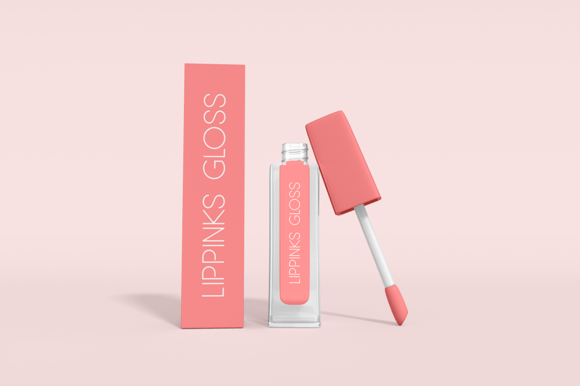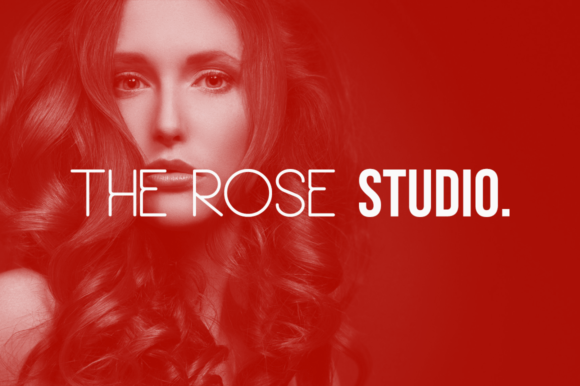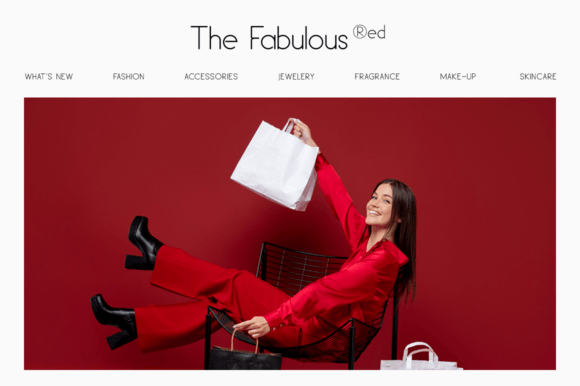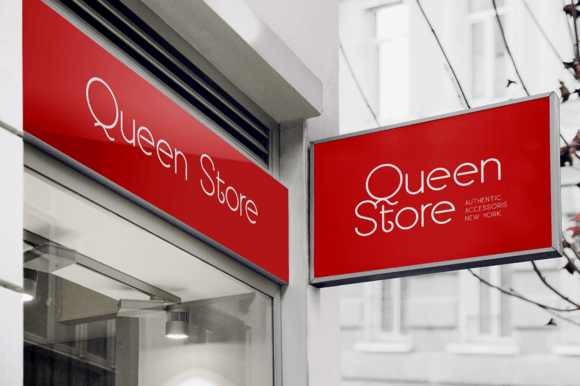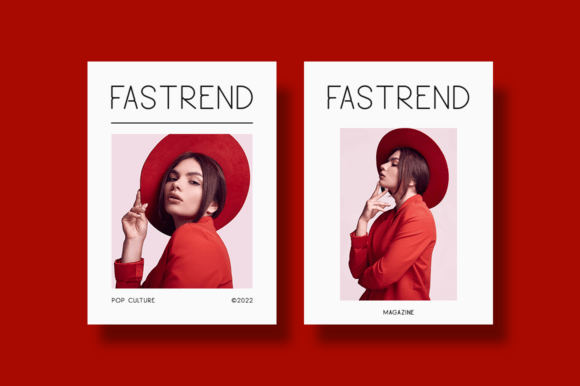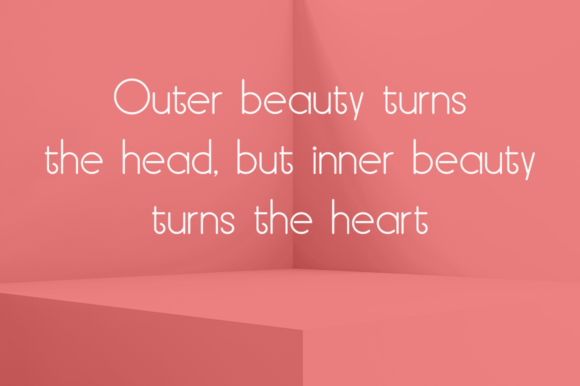
Fantasion Font: Elevate Your Crafting Ideas with Elegance
In the world of design and crafting, the right font can make all the difference. A well-chosen font can elevate your project, convey your message, and leave a lasting impression on your audience. If you’re looking for a font that exudes elegance and sophistication, look no further than Fantasion Font. In this article, we’ll explore the features and benefits of Fantasion, and how it can take your crafting ideas to the next level.
What is Fantasion Font?
Fantasion is an elegant sans serif font that is perfect for designers and crafters who want to add a touch of sophistication to their projects. Its clean and modern design makes it versatile and easy to use, while its PUA (Private Use Area) encoding ensures that you can access all of the glyphs and swashes with ease.
Key Features of Fantasion Font
- Elegant Sans Serif Design: Fantasion’s sleek and modern design makes it perfect for a wide range of projects, from cards and branding to labels and more.
- PUA Encoded: With PUA encoding, you can access all of the glyphs and swashes with ease, giving you maximum flexibility and creative control.
- Wide Range of Uses: Fantasion is perfect for a variety of crafting ideas, including cards, branding, labels, and more.
Benefits of Using Fantasion Font
So why choose Fantasion Font for your next project? Here are just a few benefits of using this elegant sans serif font:
- Elevate Your Designs: With Fantasion, you can add a touch of elegance and sophistication to your designs, taking them to the next level.
- Easy to Use: Fantasion’s PUA encoding makes it easy to access all of the glyphs and swashes, so you can focus on creating, not struggling with complicated font issues.
- Versatile: Fantasion is perfect for a wide range of projects, from cards and branding to labels and more, making it a great addition to any designer’s or crafter’s toolkit.
How to Use Fantasion Font in Your Projects
Using Fantasion Font in your projects is easy. Here are a few ideas to get you started:
- Cards: Add a touch of elegance to your greeting cards, invitations, and other paper crafts with Fantasion.
- Branding: Use Fantasion to create stunning brand identities, including logos, business cards, and letterheads.
- Labels: Add a professional touch to your labels and packaging with Fantasion’s clean and modern design.
Tips and Tricks for Getting the Most Out of Fantasion Font
Here are a few tips and tricks for getting the most out of Fantasion Font:
- Experiment with Different Sizes and Colors: Fantasion looks great in a variety of sizes and colors, so don’t be afraid to experiment and find the perfect combination for your project.
- Pair with Other Fonts: Fantasion pairs well with a variety of other fonts, so try combining it with other sans serif or script fonts to create a unique look.
- Use the Swashes and Glyphs: Fantasion’s PUA encoding gives you access to a range of swashes and glyphs, so be sure to use them to add a touch of personality to your project.
In conclusion, Fantasion Font is a versatile and elegant sans serif font that is perfect for designers and crafters who want to add a touch of sophistication to their projects. With its PUA encoding, clean and modern design, and wide range of uses, Fantasion is a great addition to any designer’s or crafter’s toolkit. Whether you’re creating cards, branding, labels, or more, Fantasion is sure to elevate your crafting ideas and leave a lasting impression on your audience.